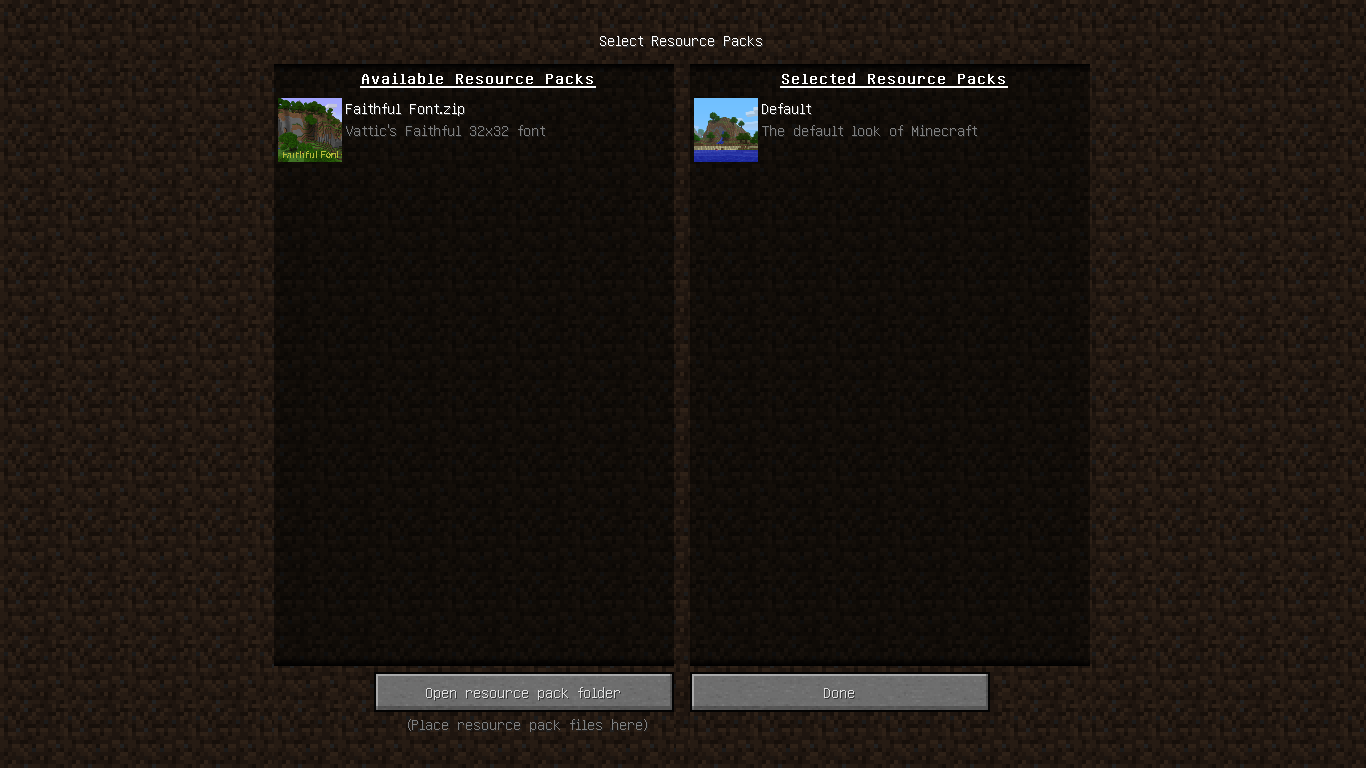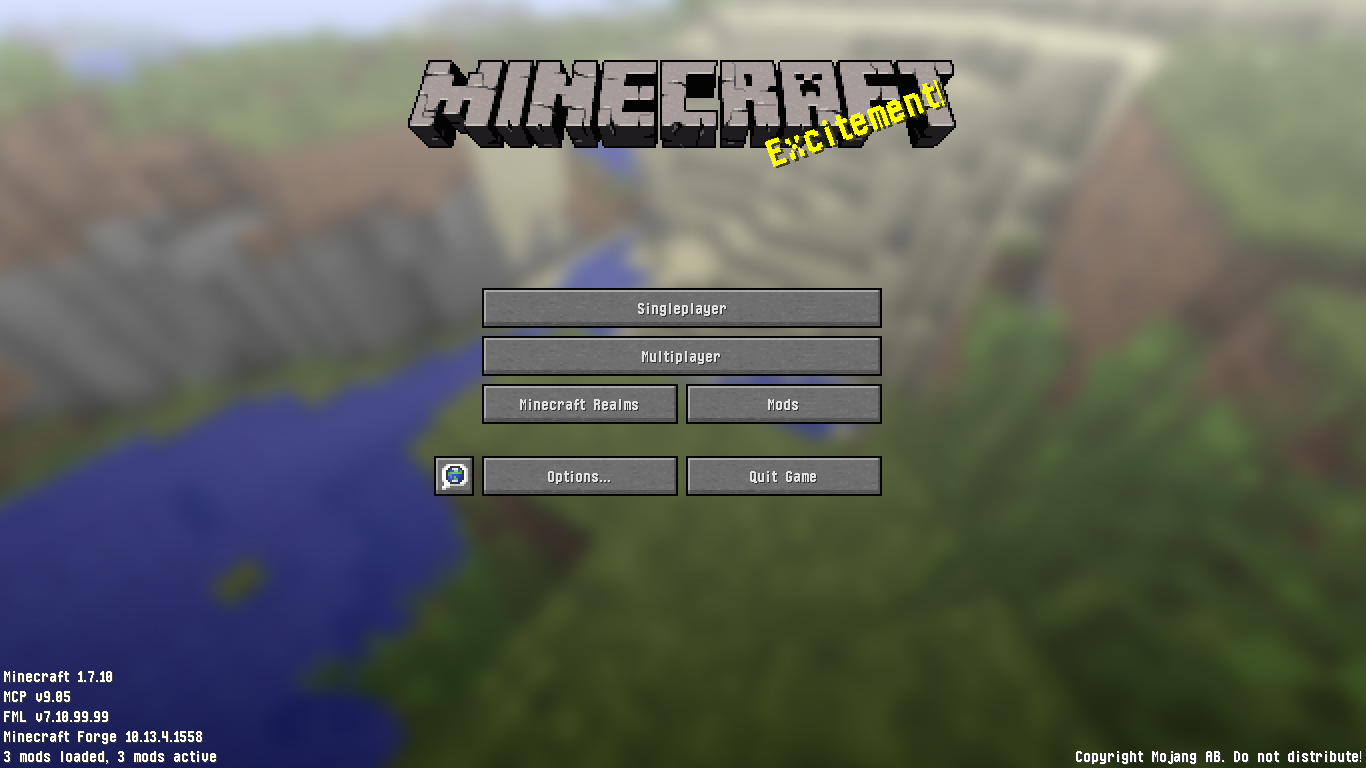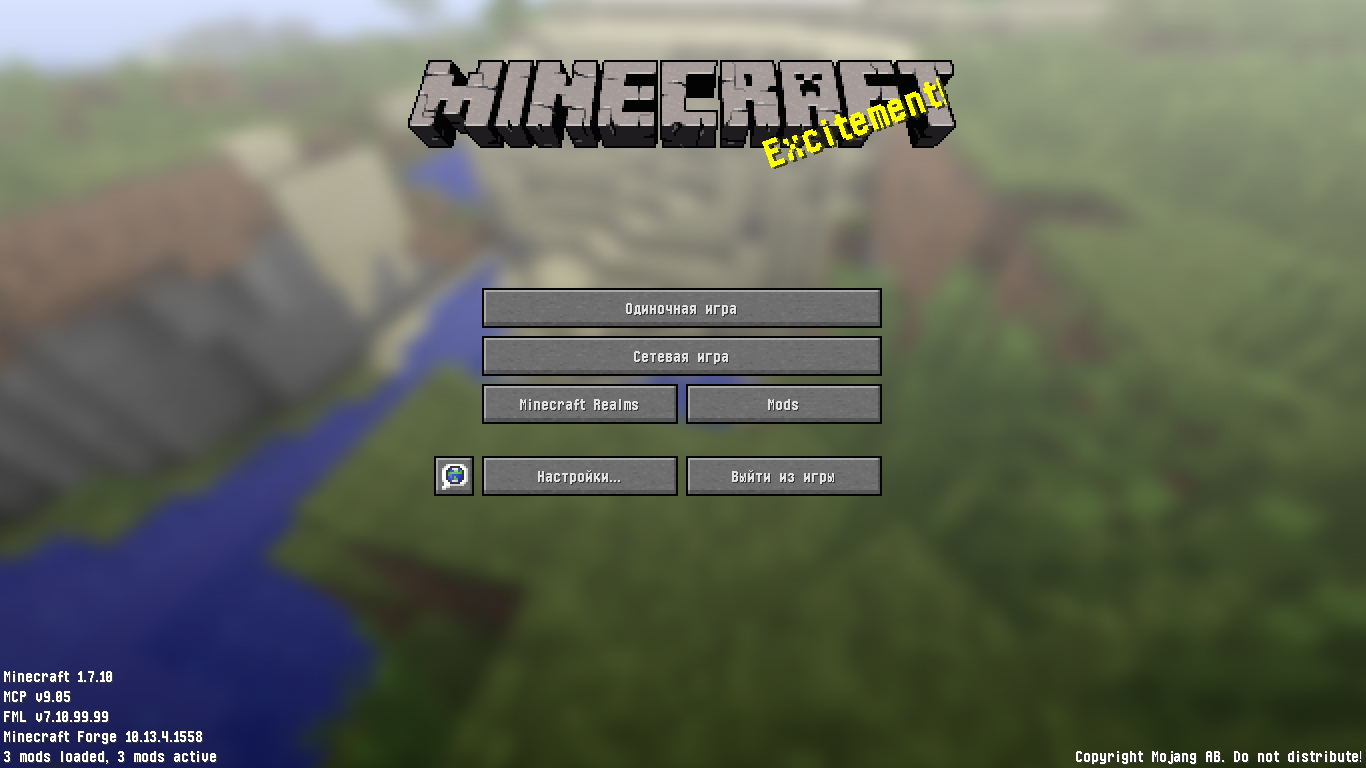
Faithful Font
Faithful english and russian font 32*32
This texture pack changes the default font of Minecraft more beautiful and readable (for example for mod Thaumcraft) thus modifying not only standard English but also Russian font.